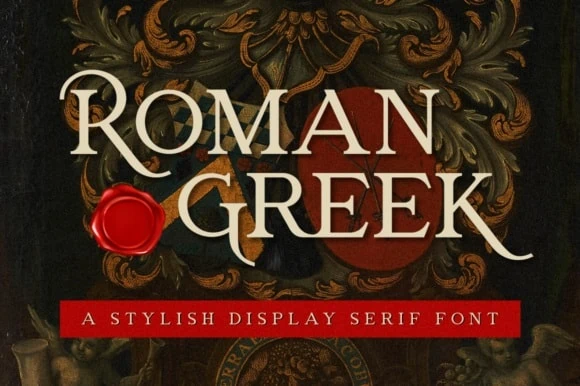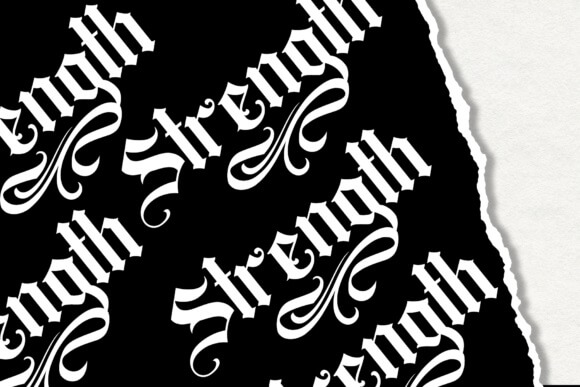
When you’re planning a tattoo, you want something that will feel timeless. After all, a tattoo is permanent. As you scroll through page after page of illegible, dated, and frankly, sometimes strange tattoos, finding the right font and style can feel more like a process of elimination rather than simply choosing the design you like best.
You can make this process faster and way less painful by choosing from the best tattoo fonts instead of attempting to find the best font on your own.
Check out the best tattoo fonts for all different kinds of tattoos in this guide.
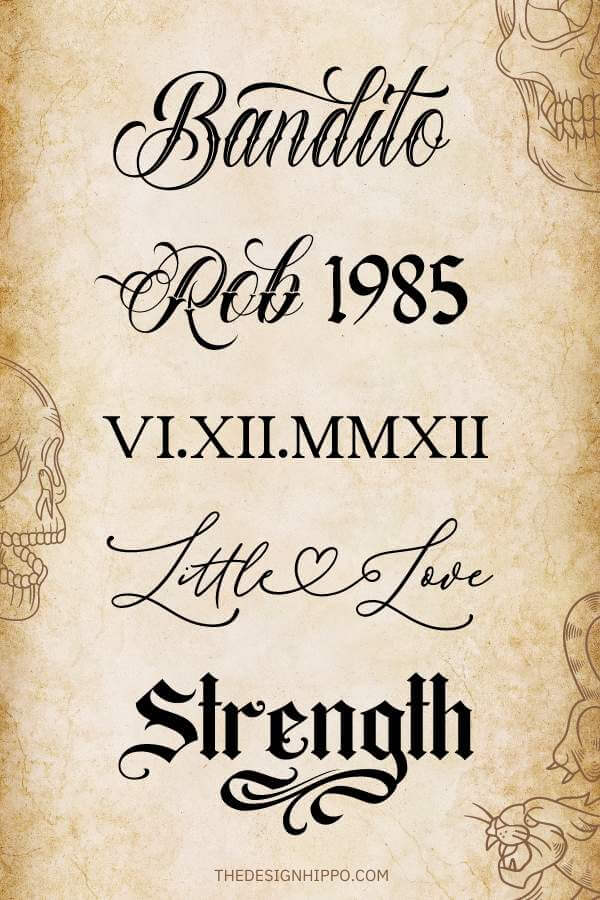
Best Tattoo Fonts – Our Top Picks
- Best Overall – Chicano
- Most Popular – Bandito
- Best for Numbers – Saint Merry
- Best for Men – Chicano Vol.2
- Best for Women – Kingside
- Best Cursive – Little Love
- Best for Names – Madelican
- Best for Quotes – Monastery
- Best Script – Fearless
- Best for Roman Numerals – Roman Greek
- Best for Words – Bugenvil
Best Tattoo Fonts
As designers, we’ve worked with a lot of fonts. Through our experience working with hundreds of fonts, we’ve developed a good eye for spotting the right font to communicate a particular feeling and which fonts tend to work best in different kinds of designs.
When you’re choosing a font, it’s not enough to just choose a font that looks good—it needs to be legible. This is especially true for tattoos, as your skin stretches and changes over time.
Choosing the right font for your tattoo is a way to ensure your ink stays legible and looks amazing for years to come.
Chicano
Best Tattoo Font Overall
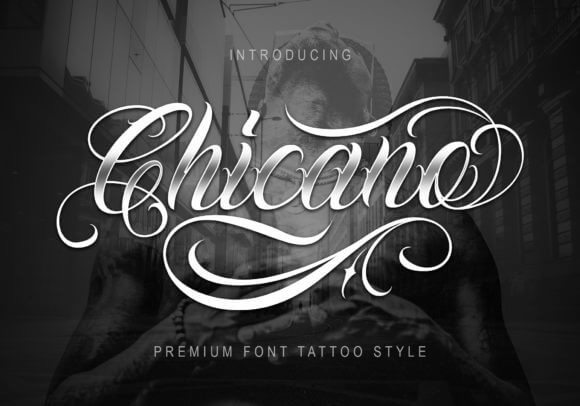
The Chicano font offers an elegant, handwriting-inspired font that makes any tattoo feel personalized. It’s perfect for names, such as the name of your child or a tribute to a loved one.
With uppercase and lowercase letters that connect seamlessly, enhanced by the accompanying swirls and long, twisted lines, this font is perfect for any tattoo or tattoo-inspired t-shirt, hoodie, or logo design.
Bandito
Most Popular for Tattoo Designs
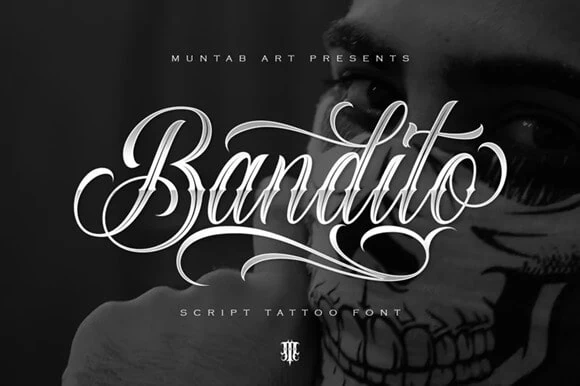
In some ways, Bandito looks like a more spaced-out, pared-down version of Chicano.
Both feature swooping uppercase and lowercase letters and wavy lines, but Bandito’s kerning gives it a slight readability edge. This is likely why it is so popular.
Bandito is a great choice for any tattoo or tattoo-inspired design that needs to be very easy to read, like your brand’s name in a logo or a large sign on your shop’s awning.
Saint Merry
Best Font for Number Tattoos
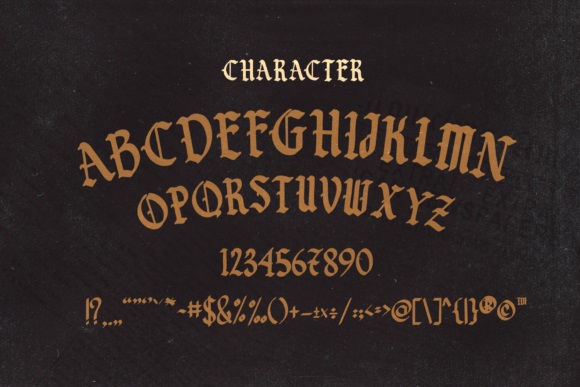
Saint Merry is a highly legible tattoo font that features easy-to-recognize, slightly medieval-inspired detached letters. This last point, the letters’ separation from each other, is what makes it the best font for any tattoo that features numbers.
In tattoo text, it can be easy to confuse letters and numbers, as the cursive font can blur the distinction between them.
By keeping characters separate, as Saint Merry does, you can avoid this issue and ensure that any numbers in your design are not lost.
Chicano Vol.2
Best Tattoo Font for Men
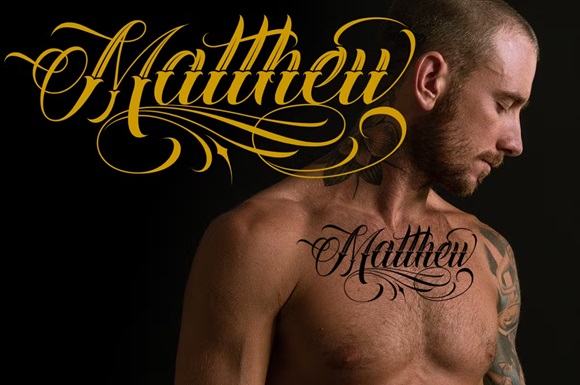
Chicano Vol. 2 is a masculine take on the Chicano font. Like its predecessor, it features uppercase and lowercase letters and swooping lines, but this time, the lines terminate in sharp edges.
Choose Chicano Vol. 2 for any kind of edgy tattoo, like a motivational quote or a tribute to the toughest guy you know.
Kingside
Best for Women
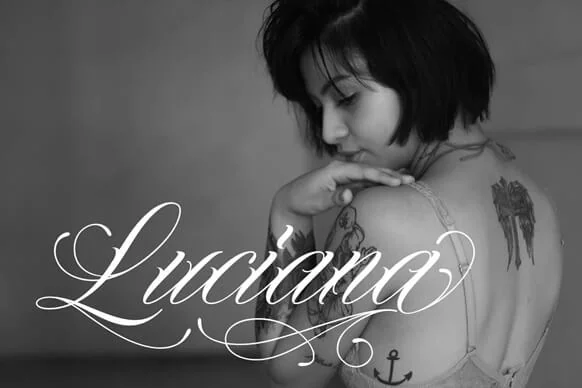
Despite its name, Kingside is the perfect font for any tattoo with a feminine aesthetic. It’s cursive-inspired but still has a cleanness and crispness that complements any delicate tattoo design.
Kingside is a sweet choice for a woman’s tattoo. It’s also a great option for a jewelry, purse, or art print design. Because its text is fairly thin, it’s best for designs that will be viewed up close rather than from afar.
Little Love
Best Cursive Tattoo Font
Cursive fonts tend to be popular for tattoos because they mimic actual handwriting. Everybody’s handwriting is unique, so choosing a handwriting-inspired font is a way to make a design feel personalized rather than generic.
Little Love is a dainty font with tall, thin letters. Despite being linked, the letters have a significant amount of negative space between them, making it a highly legible font. This makes Little Love ideal for any design that is primarily text, like a short phrase or sentence.
Madelican
Best Tattoo Font for Names
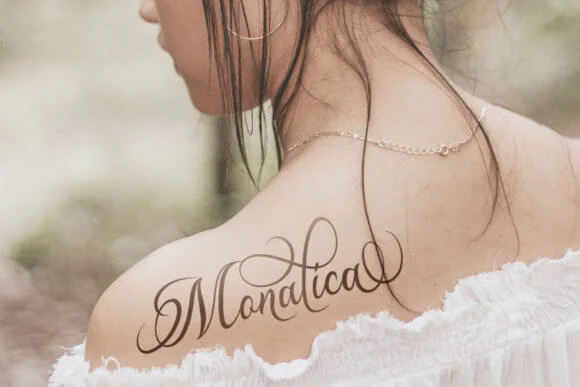
Although Madelican’s letters are linked and share some design elements with cursive fonts, its letters are mostly similar to print handwriting. This, along with its significant size difference between uppercase and lowercase letters, makes it extremely easy to read, which makes it perfect for name tattoos.
Madelican is one of the best tattoo fonts for names because it works on just about any type of design. Use it on clothing designs, mugs, and personalized prints, as well as tattoos.
What is the best tattoo font for Bible verses?
Because Bible verses are essentially quotes, Monastery is a great choice for them. Other good choices for Bible verse tattoos include:
- Roman Greek. This antiquities-inspired font is a nod to the era that produced the Bible.
- Fearless. The Word of God deserves a strong, inspiring font.
- Bandito. For a font that has some flair but is still easy to read, Bandito has you covered.